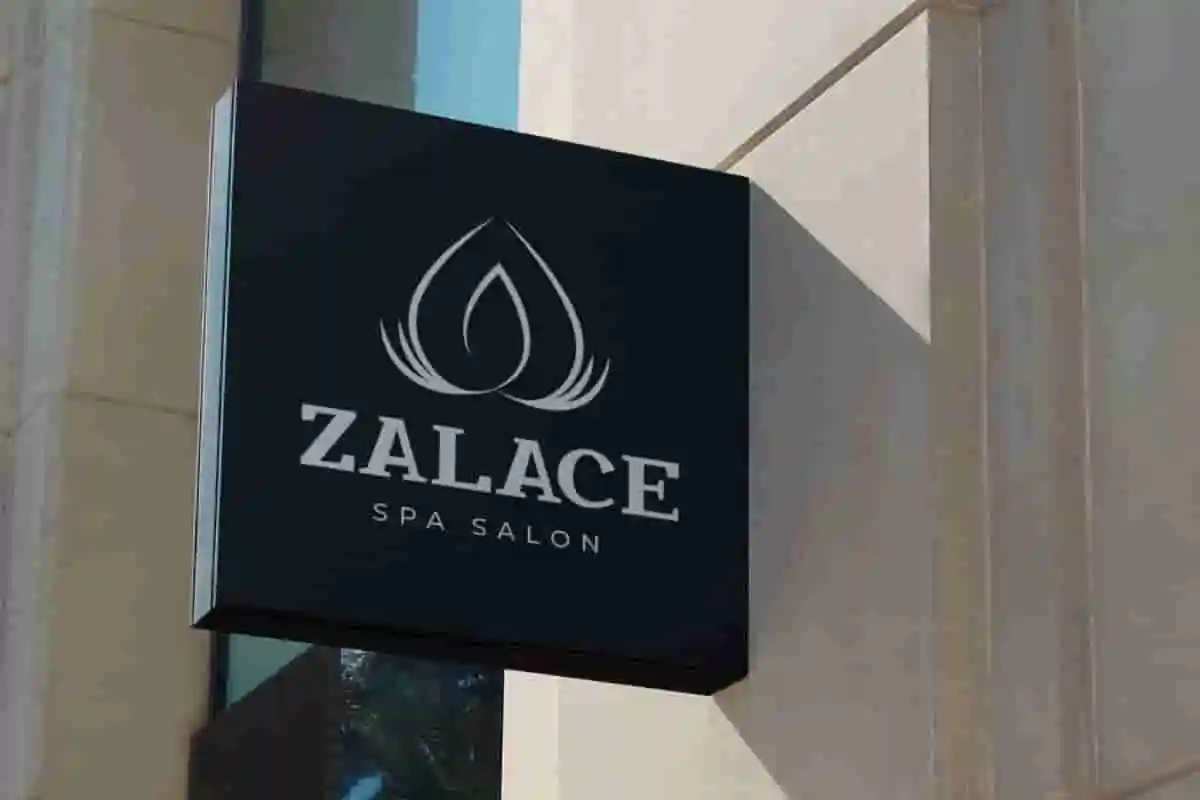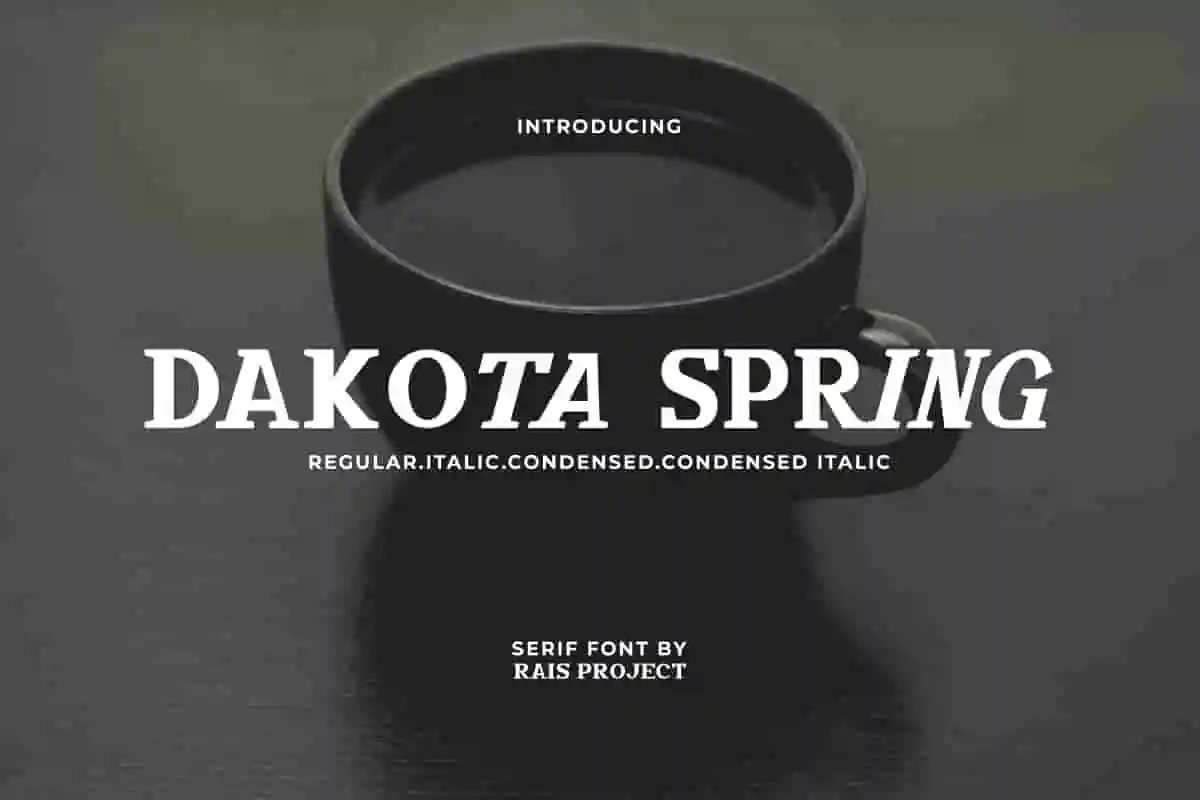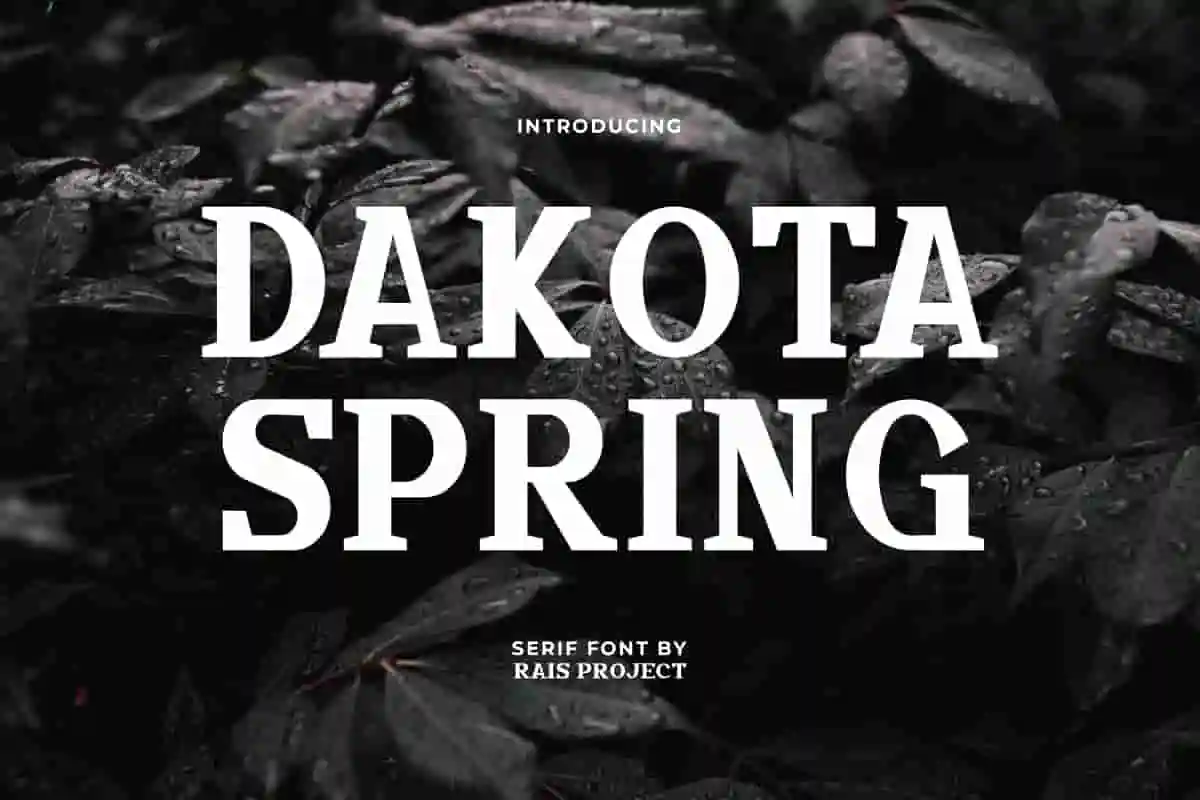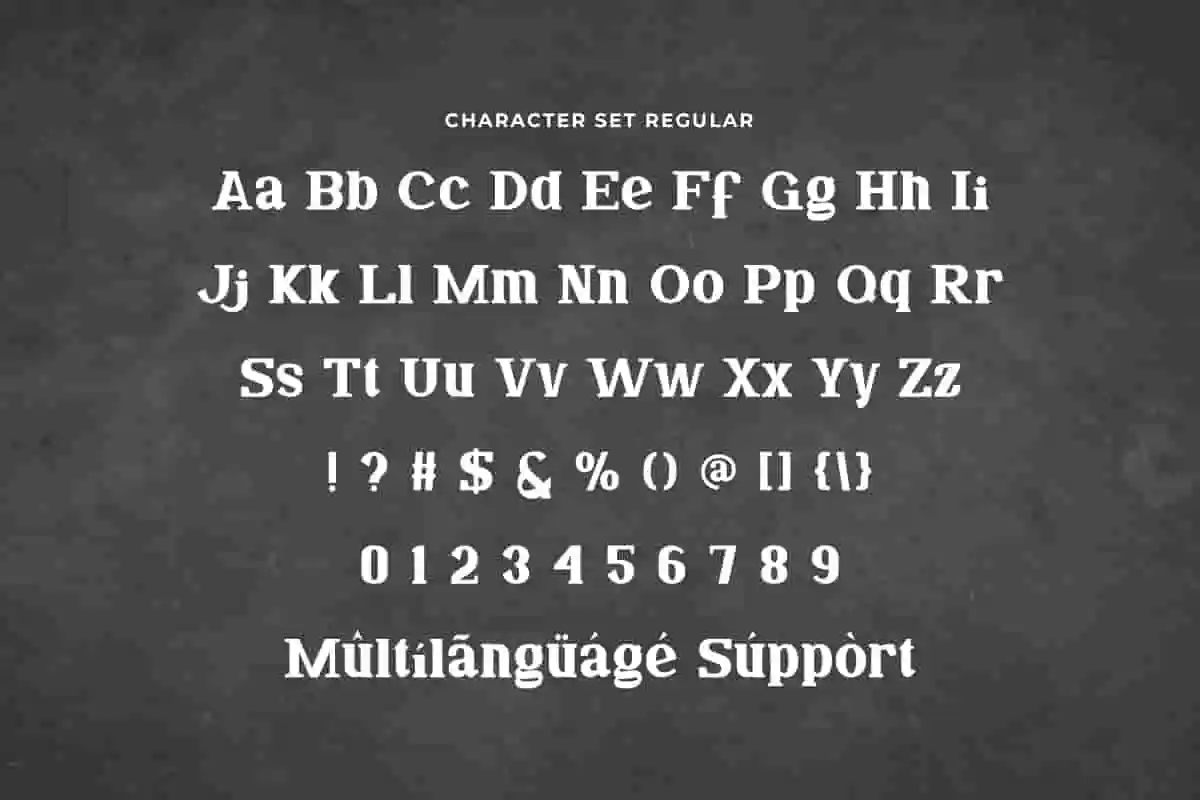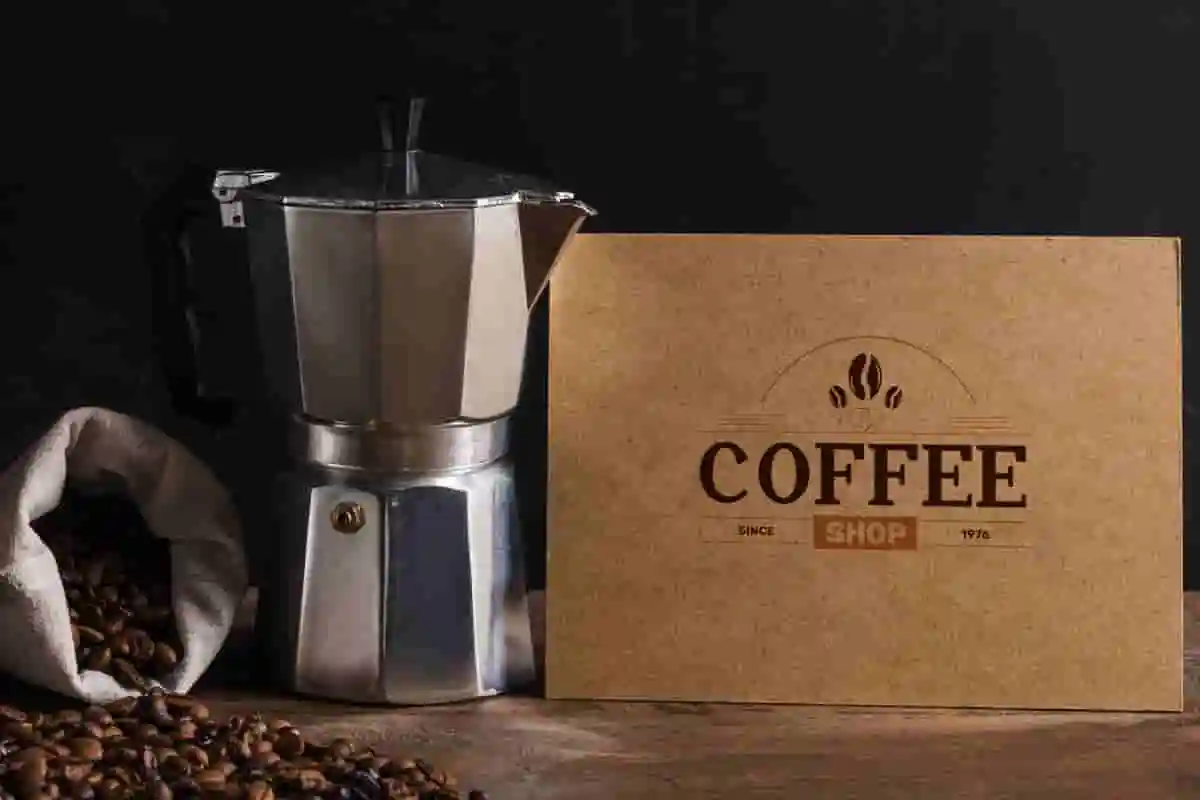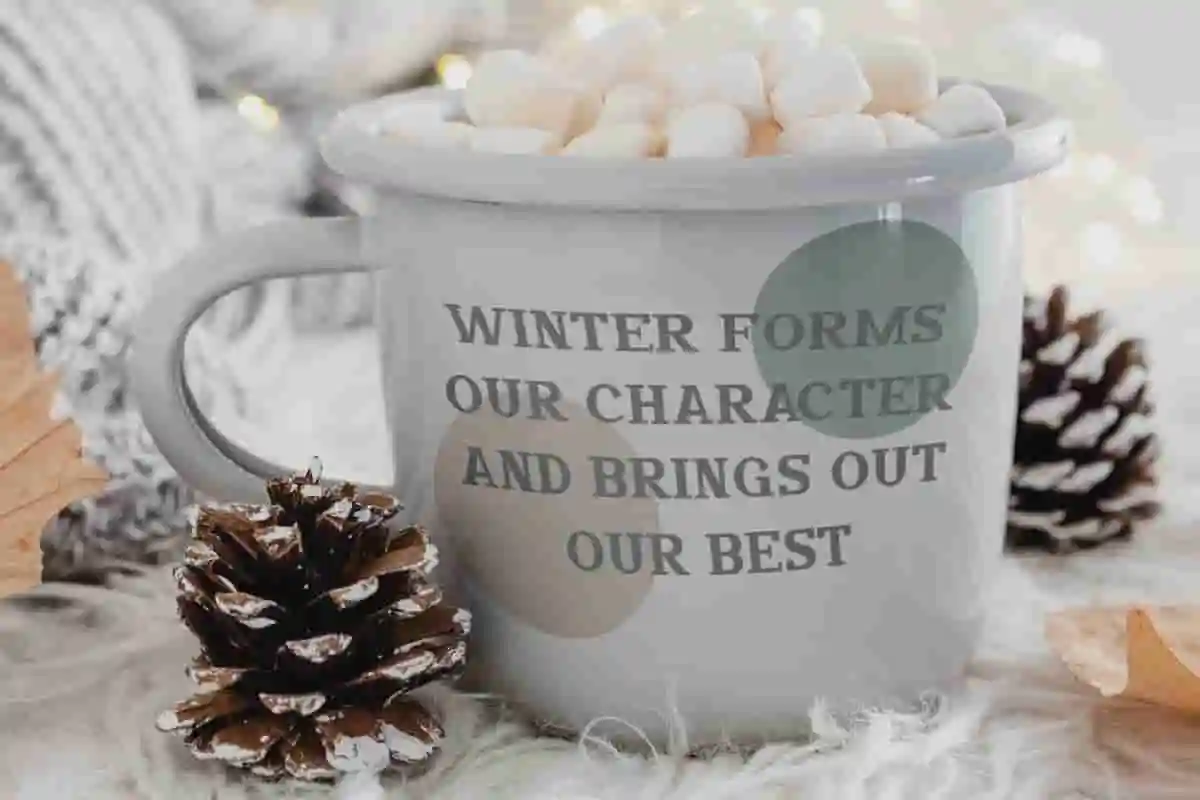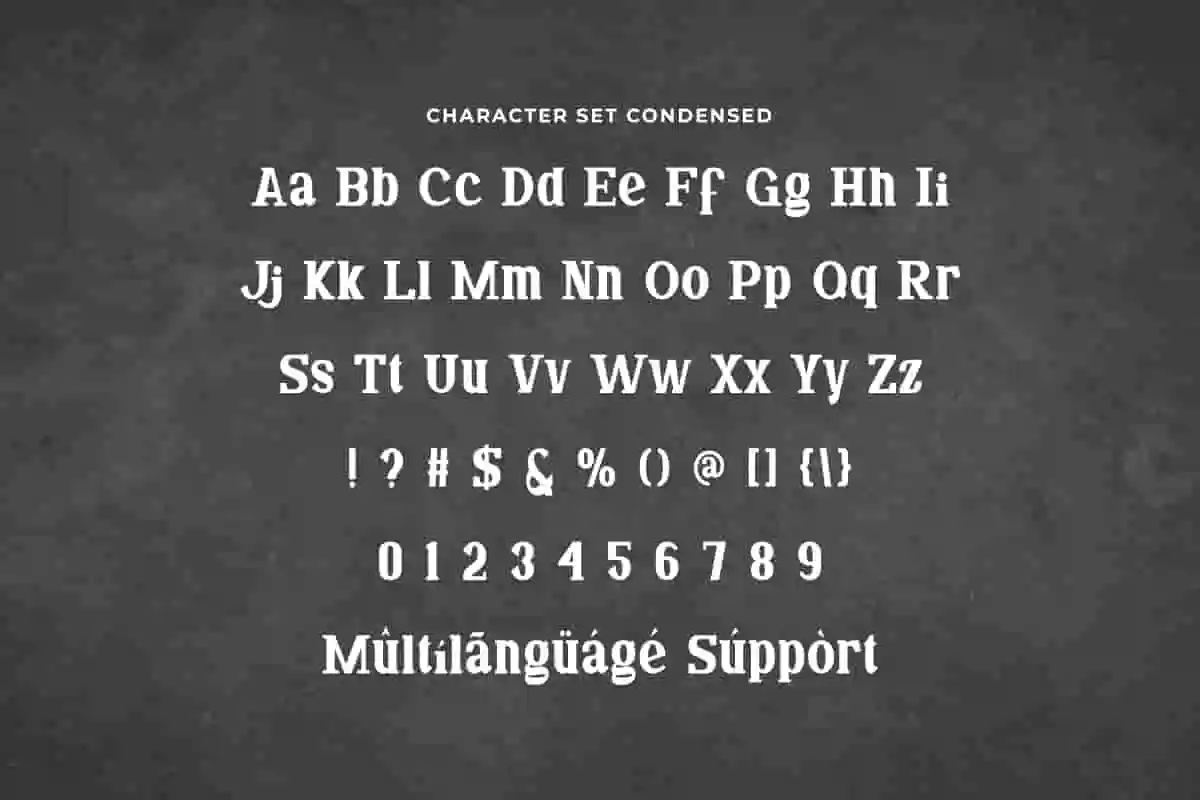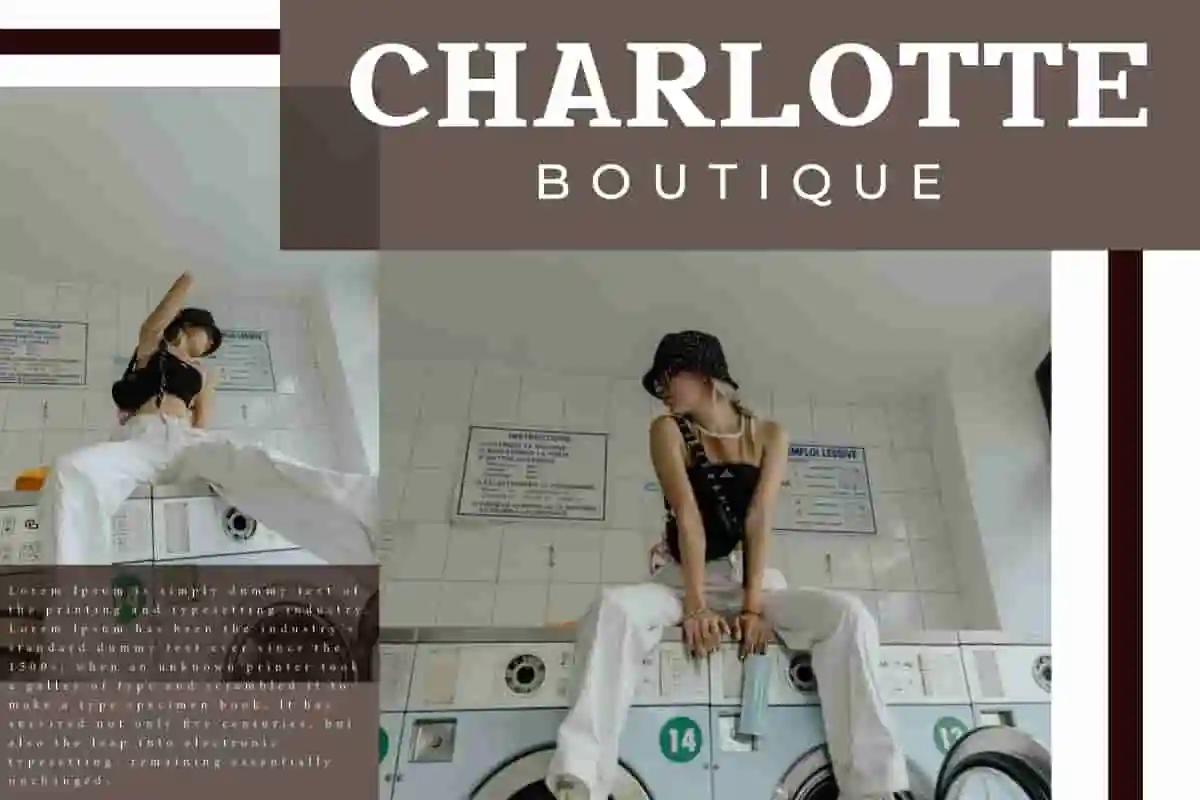
Dakota Spring Font
Dakota Spring Font is a modern casual sans serif font, designed by RaisProject. This font has four stunning styles that will steal your attention. Use this font right away and see how special it is in your designs!
Dakota Spring Font an exclusive Sans Serif font with various different styles: Regular, Italic, Condensed, and Condensed Italic that which will make your designs attractive! It will be perfect for many industries, such as bakery, boutique, café, fashion brand, handicrafts, homeware, interior design, publishing, real estate, restaurant, spa and salon, etc. You can see the demo font below and input any word you want so you can see what it will look like:
Dakota Spring Font includes a full set of cool Uppercase and Lowercase Letters, Numerals, and large range of Punctuation.It can customized on many designs, such as label, mockup design, poster, product packaging, quotes, screen printing, signage, stationery, website, and more! You will get: